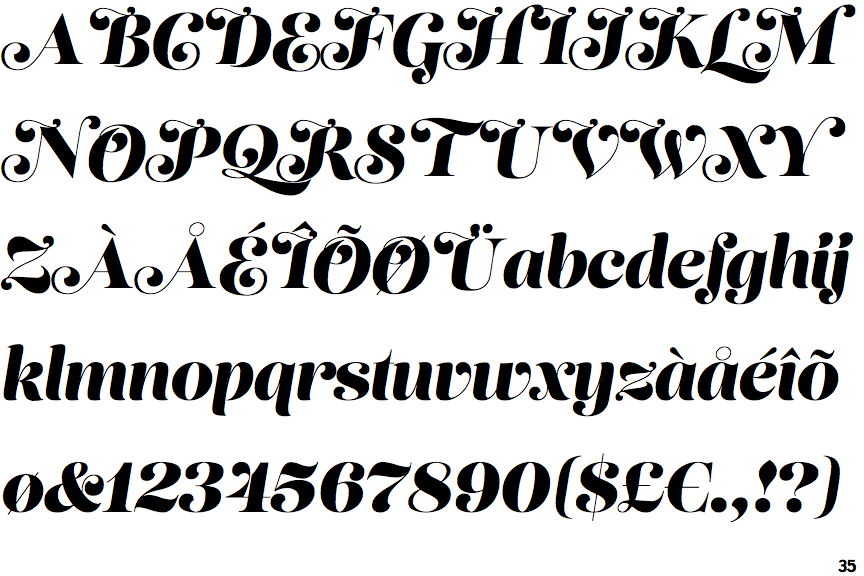
Lust Script Font. A script typeface with 3 styles, available from adobe fonts for sync and web use. To say that lust is best used for display purposes would be an.
Styles/fonts 3 features a b c d e f g h p style names aa fine aa display aa regular. Lust script contains 3 styles and family. Web lust script design neil summerour current release 2020 initial release 2013 no. To say that lust is best used for display purposes would be an. Web complete family of 3 fonts: Lust script font is a script type font that can be used on any device such as pc, mac, linux, ios. Web explore lust script designed by neil summerour at adobe fonts. A script typeface with 3 styles, available from adobe fonts for sync and web use. Web lust script font download is available free from 8font.com. Web lust is a serif typeface designed by neil summerour and released through positype in 2012.
Lust script font family was designed by neil summerour and published by positype. Lust script font family was designed by neil summerour and published by positype. Web lust script design neil summerour current release 2020 initial release 2013 no. To say that lust is best used for display purposes would be an. Lust script contains 3 styles and family. Web lust is a serif typeface designed by neil summerour and released through positype in 2012. Lust script font is a script type font that can be used on any device such as pc, mac, linux, ios. Styles/fonts 3 features a b c d e f g h p style names aa fine aa display aa regular. Web lust script font download is available free from 8font.com. Web explore lust script designed by neil summerour at adobe fonts. Web complete family of 3 fonts: